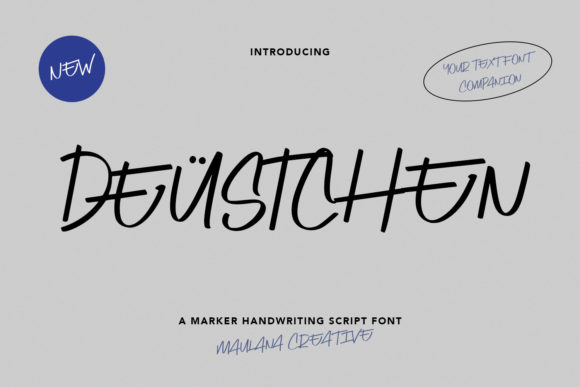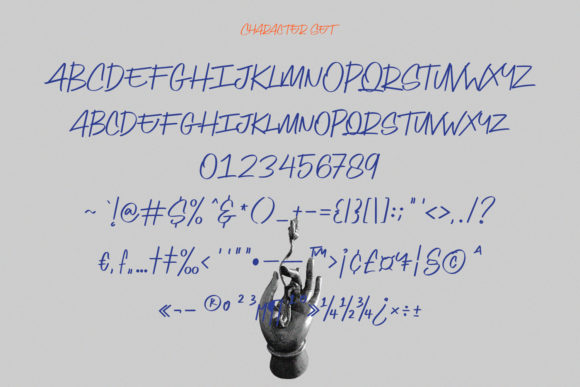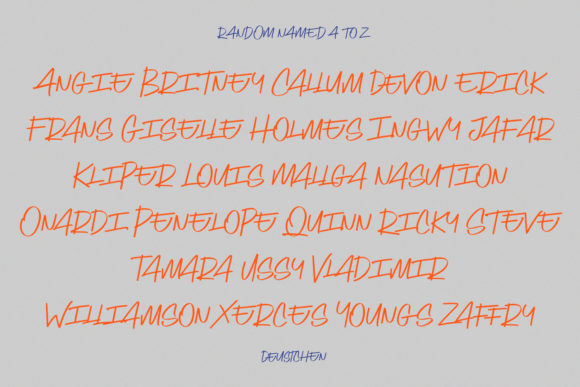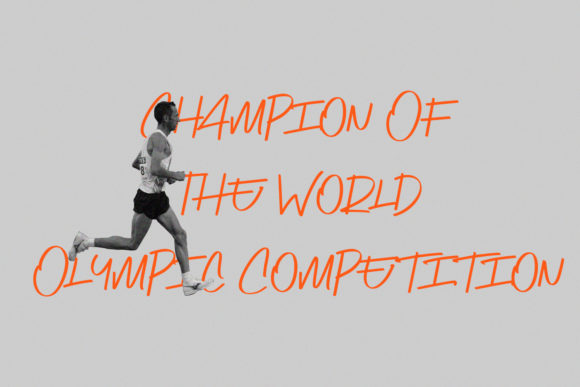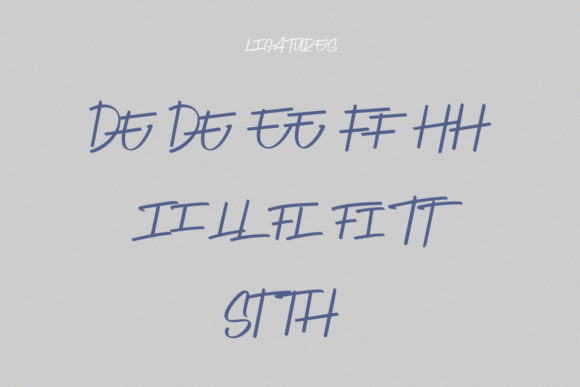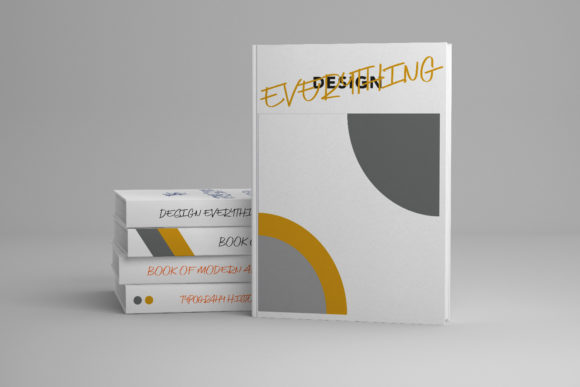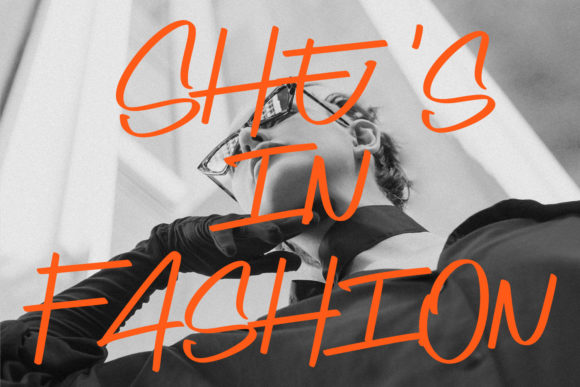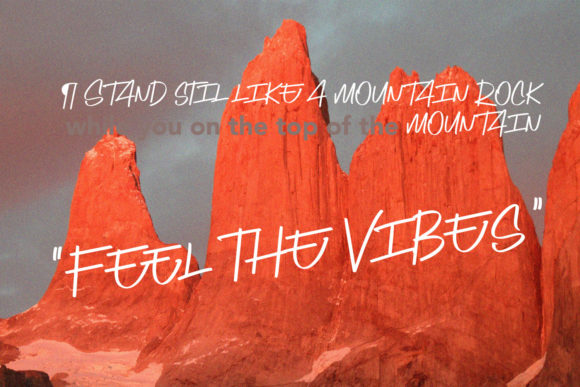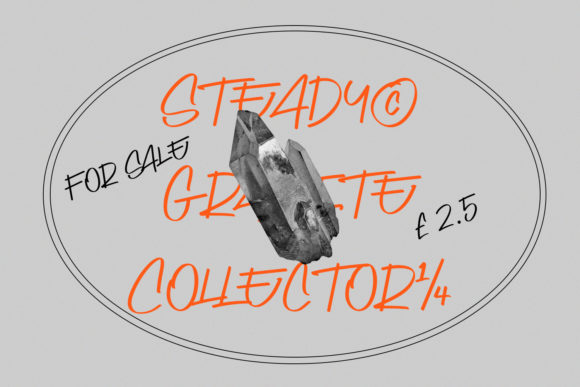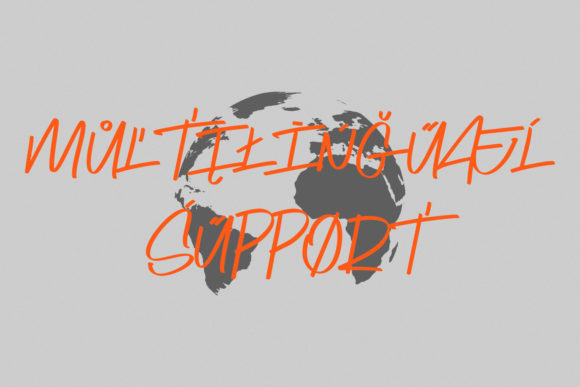
Deustchen Font
About Deustchen Font
Deustchen is a cool and quirky handwritten font that brings a unique and playful touch to any design. With its readable letterforms and distinctive style, this font is sure to catch the eye and add a touch of character to your projects.
The charm of Deustchen lies in its versatility. It can be used for a wide range of creative endeavors, including branding, logos, posters, social media graphics, and more. Its slightly quirky nature adds a sense of fun and personality, making your designs stand out from the crowd.
Whether you’re working on a project for a playful brand or want to add a whimsical touch to your personal designs, Deustchen has the potential to elevate your creations. Its cool and readable style ensures that your message is clear and legible while still maintaining a unique and distinctive look.
The slightly irregular letterforms of Deustchen give it a handcrafted and organic feel. This adds a sense of warmth and authenticity to your designs, making them feel more personal and engaging. It’s a font that’s perfect for those looking to add a touch of quirkiness and character to their work.
One of the great features of Deustchen is its ability to adapt to various design contexts. Whether you’re creating a logo, a headline, or body text, this font can be easily paired with other typefaces to create a harmonious and balanced composition.
Overall, Deustchen is a versatile and quirky handwritten font that brings a cool and readable vibe to any design project. Its playful nature and unique style make it an excellent choice for adding a touch of personality and charm to your creations.